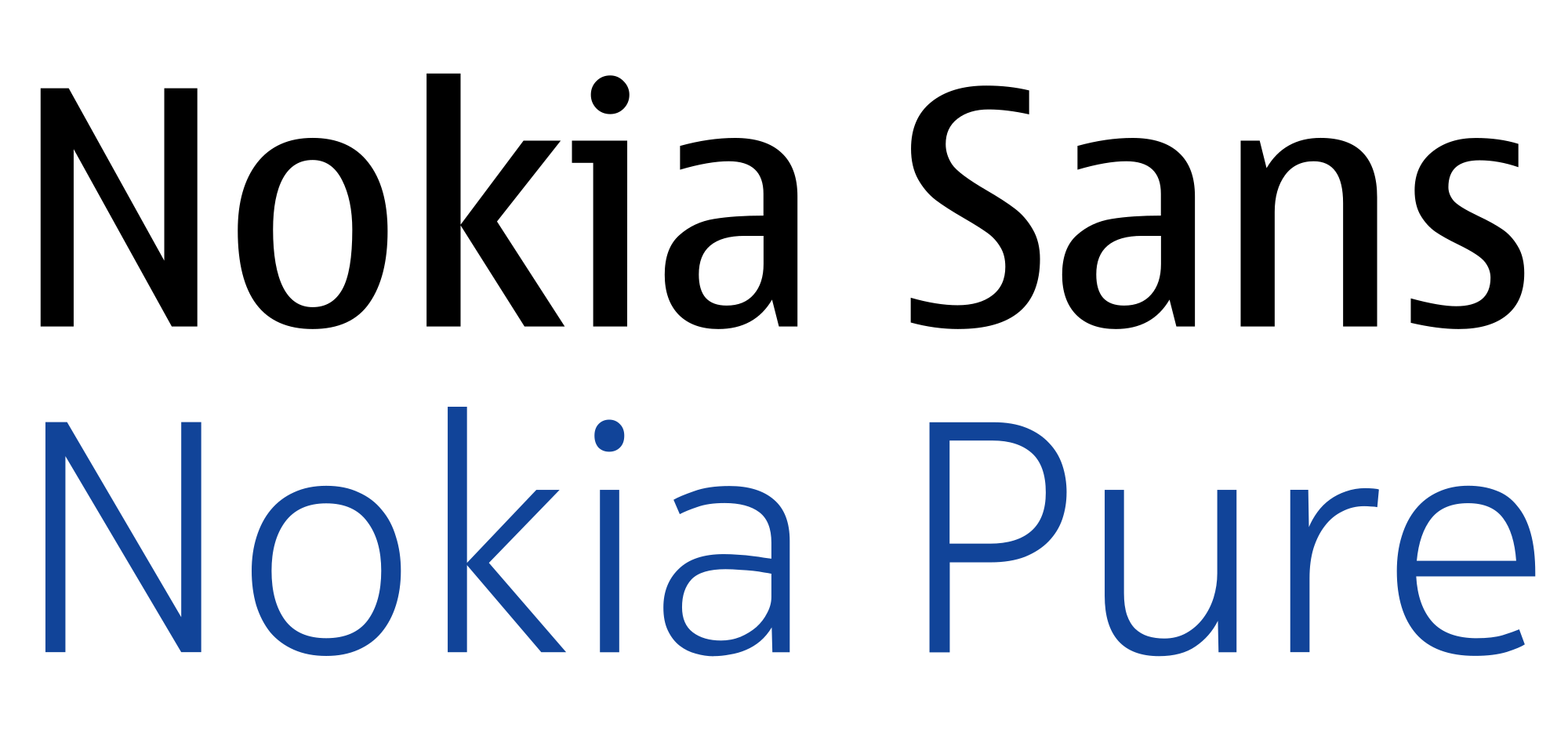
8 digital brands that designed custom typefaces to save millions
It seems our current digitised era is perpetuating the era of customisable typefaces. Online streaming service Netflix just announced its collaboration with London type foundry Dalton Maag to create its own typeface, Netflix Sans, not long after the BBC announced its Reith in-house typeface last year. These digital brands aren’t just choosing a custom typeface for brand aesthetics and ownership – it’s also a smart move to save millions every year on font licensing.
But Netflix and the BBC are only the latest addition to a increasing list of digital brands choosing to design custom typefaces over forking out massive yearly licensing fees for “off-the-shelf fonts”, as Dalton Maag puts it. These brands join Apple, Samsung, YouTube and Google among others.
Here we take a look at the custom typefaces designed by in-house teams at digital companies – in conjunction with type foundries from across the globe.
Netflix
Netflix brand design lead Noah Nathan worked with Tanya Kumar and the team at Dalton Maag to create a new, more “ownable” geometric grotesque typeface that works alongside the brand’s aesthetics.
The uppercase proportions of Netflix Sans are designed to appear cinematic and the lowercase proportions are compact and efficient. Noah describes the letterforms as clean and neutral.
The arched cut on the lowercase ‘t’ is apparently inspired by the “cinemascopic curve” of the brand’s wordmark. Netflix Sans comes in different weights including regular, light, thin, medium, bold and black.
BBC
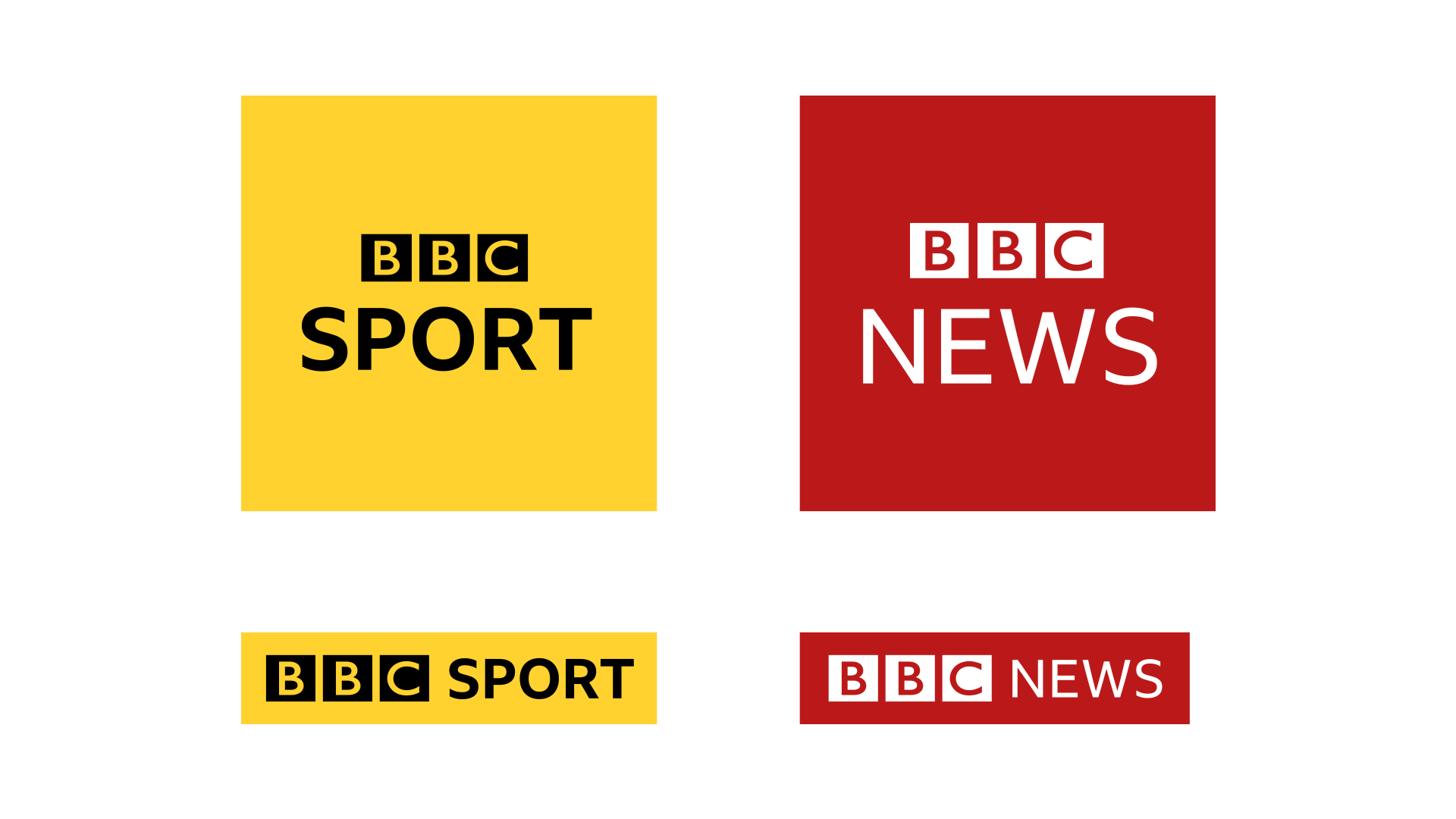
The BBC worked alongside Dalton Maag to replace using Gill Sans (which it had since 1997) with its own custom typeface called Reith, named after the corporation’s first director-general Lord Reith.
Work on the typeface began back in 2015. The BBC wanted a single suite of fonts to function as a brand typeface, an information typeface and a reading typeface for small and digital screens, surely because most of us consume news on our smartphones now. The humanist sans and serif are designed to work together, constructed of open counters, regularised proportions and sharp connections between bowl and stem.
BBC Reith made its first appearance across BBC Sport in August 2017.
YouTube
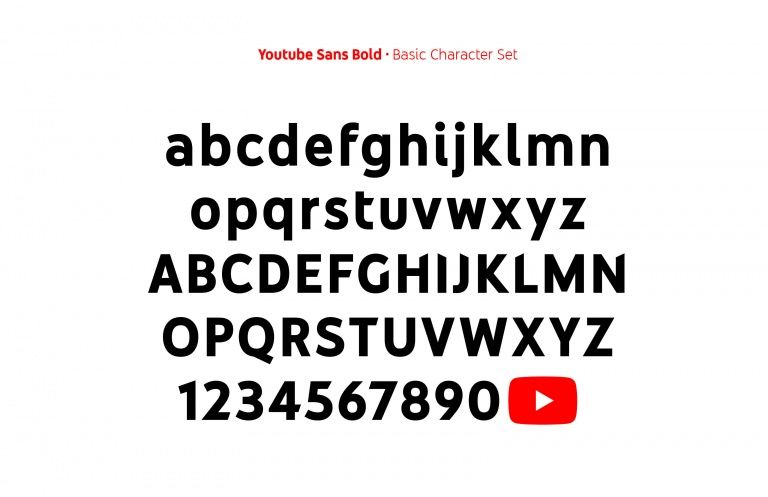
YouTube Sans rolled out in May 2017, designed by its in-house UX team alongside brand consultancy Saffron and type foundries Letterjuice and URW++.
Inspired from the the design of YouTube’s iconic red play button logo, YouTube Sans is a sans-serif typeface that’s simple, bold and curved with diagonal cuts which reflect the white triangle in the centre of the play button.
The play button itself is incorporated into the custom typeface as a glyph, so it can be typed like any other letter.
The YouTube Sans font family includes light, medium and bold weights, which are used across digital and physical manifestations.
The typeface was unveiled during the launch for YouTube TV – the video site’s live television service.
YouTube Sans is used across YouTube TV’s products and communications.
Alongside its own typeface library, Google Fonts, Google also created and then open-sourced typeface Roboto for Android and Chrome OS, and Product Sans, a sans-serif typeface created by Google for branding purposes. It came into effect in 2015 as Google’s branding grew its presence across a multitude of devices.
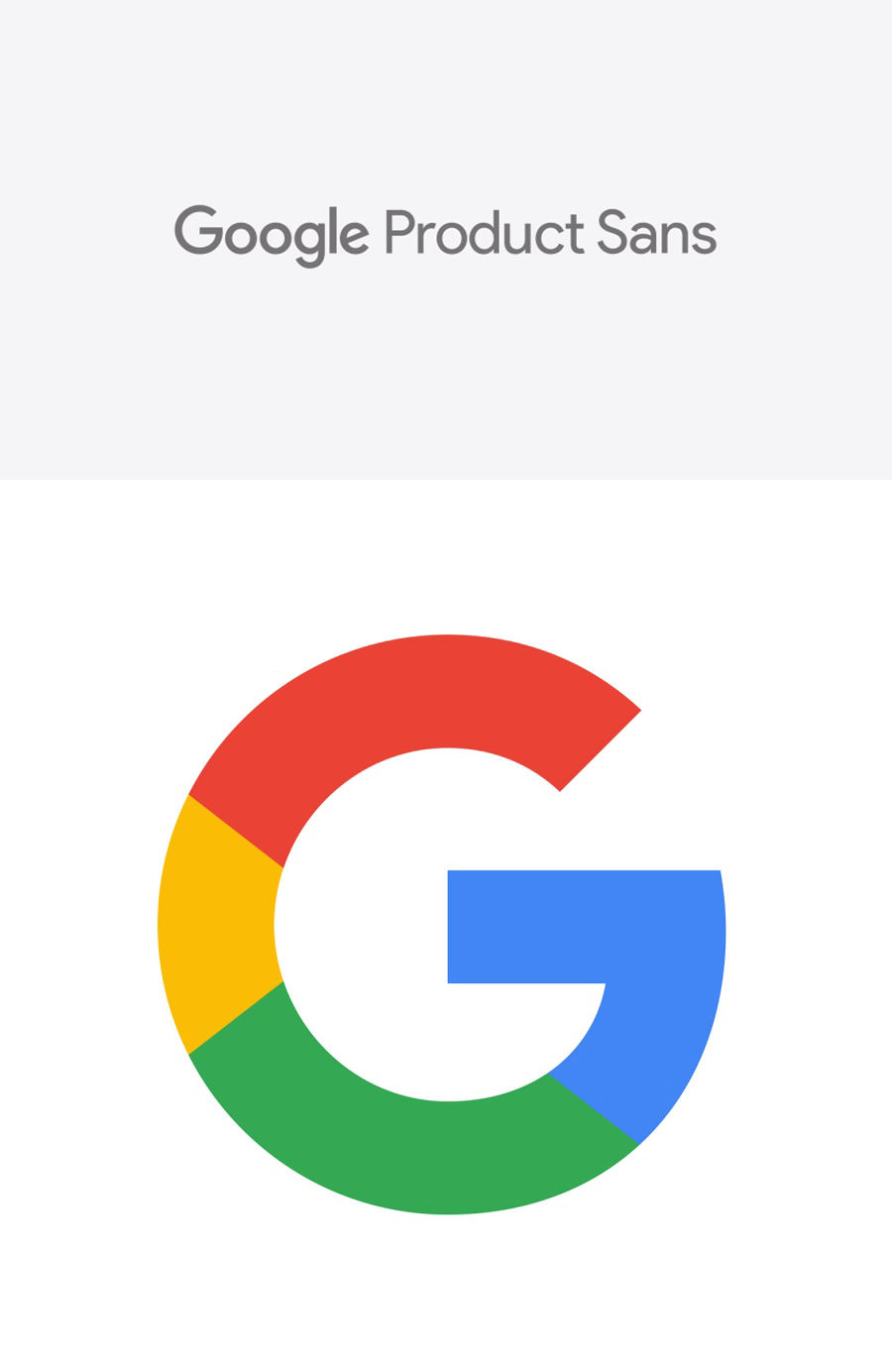
Product Sans was created so the Google logo could be portrayed in constrained spaces and remain consistent for its users across platforms. Roboto is also part of Google’s general material design language seen across its services such as Inbox and Google Play Music. The typeface has been open sourced on GitHub for anyone to modify.
Apple
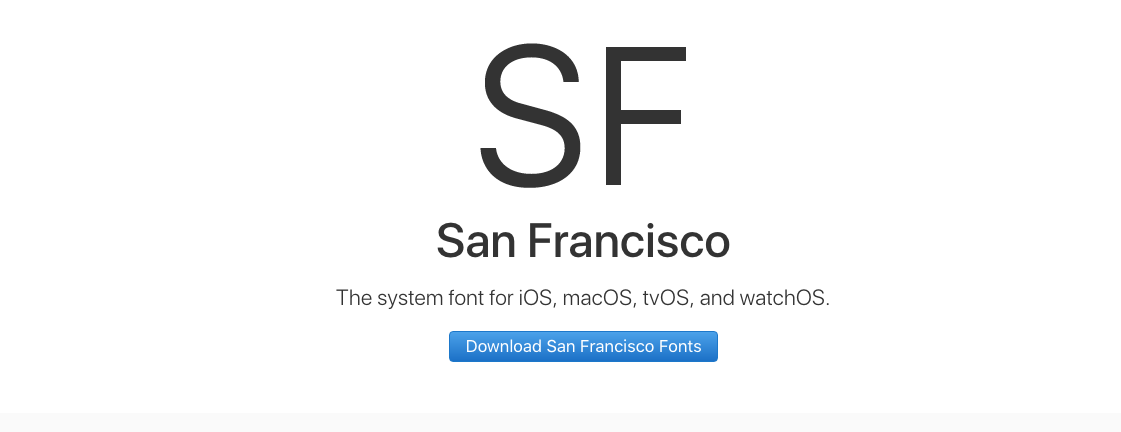
There’s pretty much no surprise that Apple designed its own typeface, San Francisco, back when the Apple Watch was launched in 2015 – and it’s now used across all iOS devices and systems. You’ll also spot San Francisco on Apple keyboards. With a focus on clarity and legibility, San Francisco works well in small sizes.
Samsung
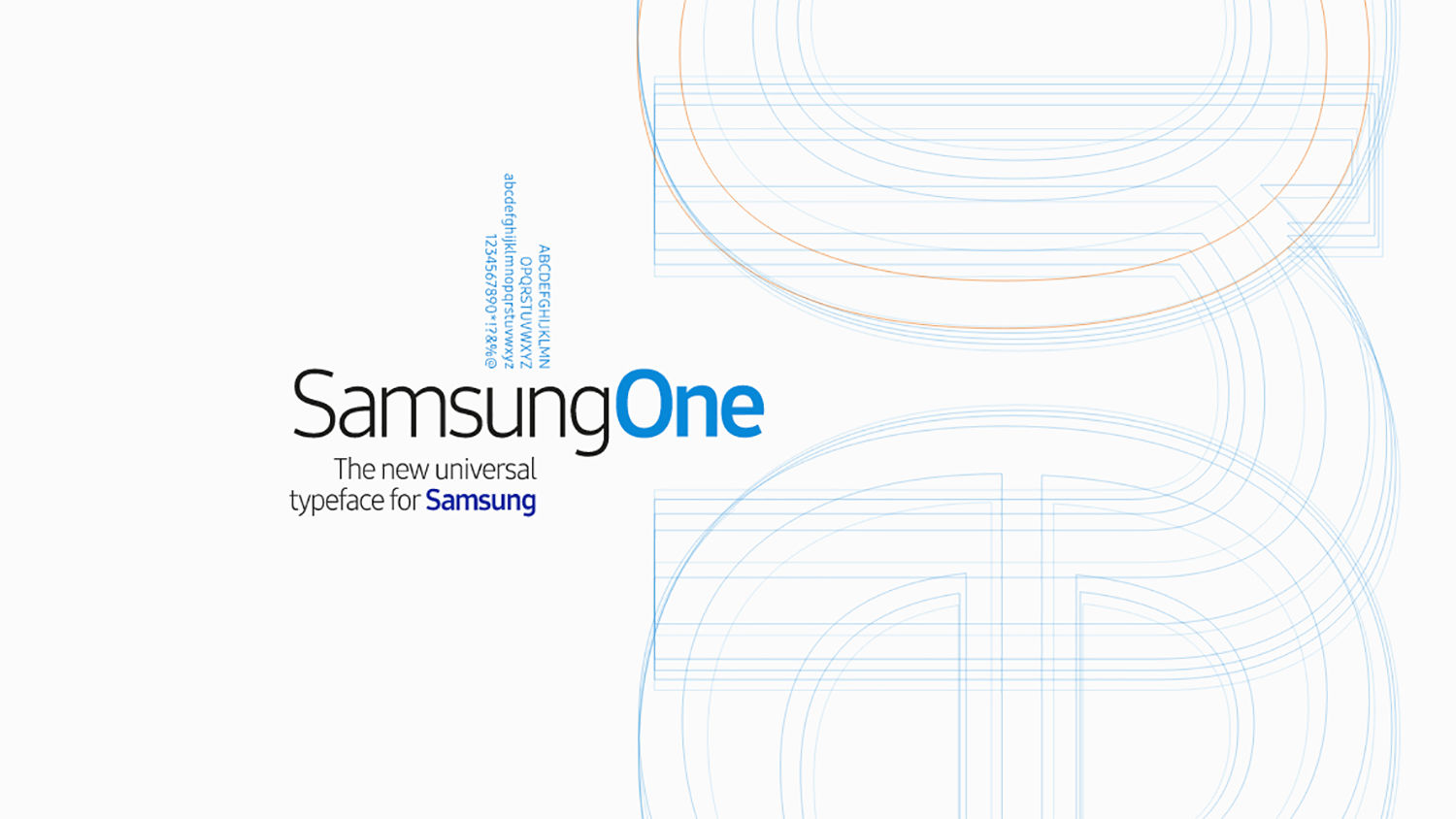
SamsungOne followed in hot pursuit after Google and Apple announced their own typefaces.
Designed to be used across all of Samsung’s devices such as phones, TVs and fridges – as well as the brand’s marketing and advertisements – the font family supports 400 different languages and more than 25,000 characters.
SamsungOne appears to resemble the original Android typeface, Droid Sans, but with more embellishments on the letterforms. The typeface provides Samsung with a separate visual identity to Google’s Roboto.
USA Today
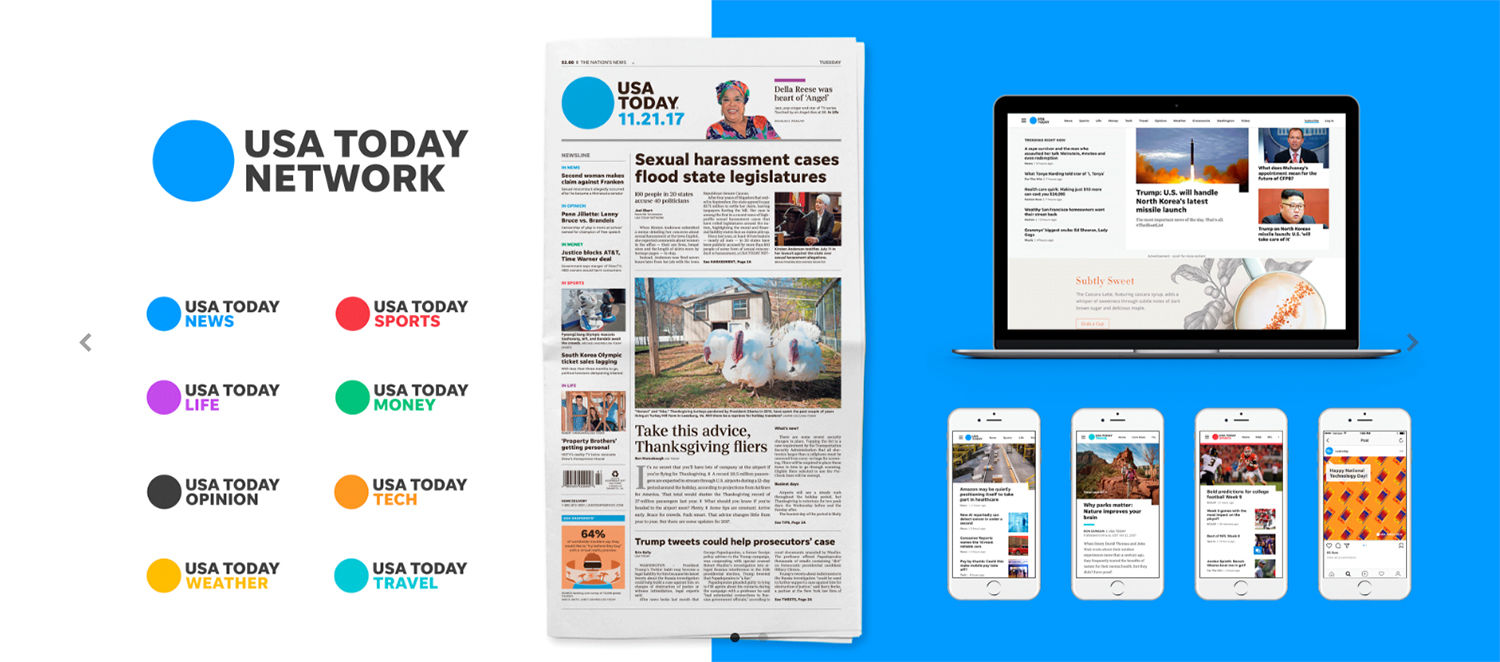
Daily national newspaper USA Today created two custom-designed fonts to use across its online, mobile, app and print platforms. It was important to unify its services under one consistent brand, according to Dalton Maag, who worked with USA Today on the project.
Nokia Pure won the Graphics category at the Design Museum’s Designs of the Year in 2012.